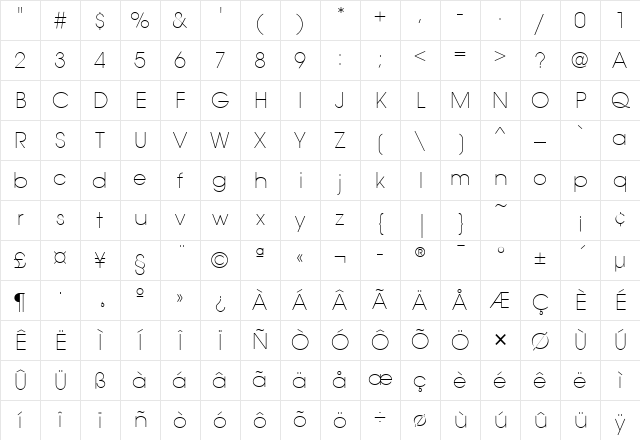
AvantGardeExtLitITC Medium
Foundry: E+F Designstudio. ITC Avant Garde is a registered trademark of International Typeface Corporation
Design Context for AvantGardeExtLitITC
AvantGardeExtLitITC is a composed and adaptable typeface that performs quietly and consistently across a wide range of design contexts.
This font was published by E+F Designstudio. ITC Avant Garde is a registered trademark of International Typeface Corporation. Check the technical specs section for copyright and designer details.